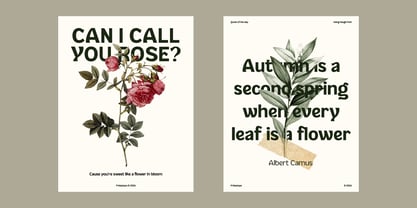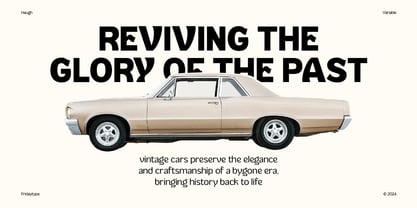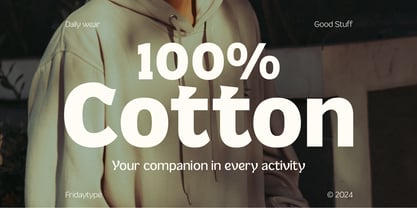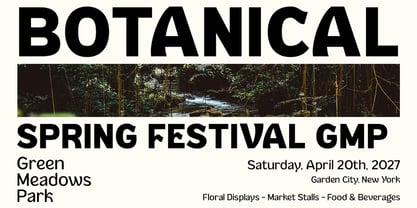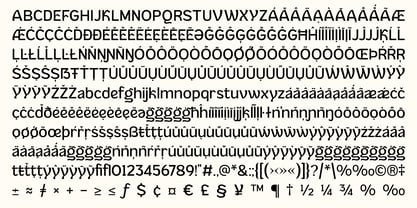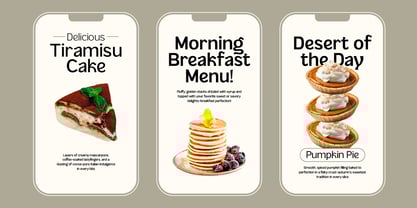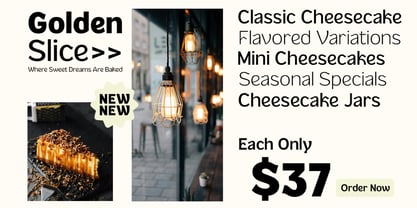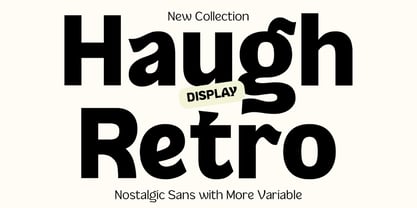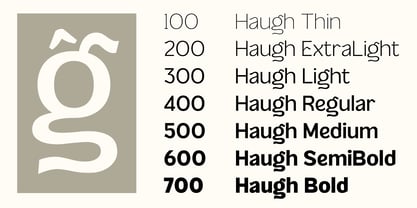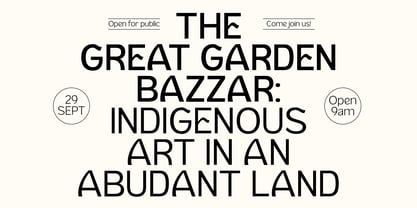
Haugh
by Fridaytype
The Haugh Font Family was designed by Farida Kurniawan and published by Fridaytype. Haugh contains 7 styles and family package options. More about this family
Haugh is a sans-serif typeface that features unique wave-like characteristics
in the glyphs with terminals. This distinct design adds a memorable touch to
your branding.
Designers: Farida Kurniawan
Foundry: Fridaytype